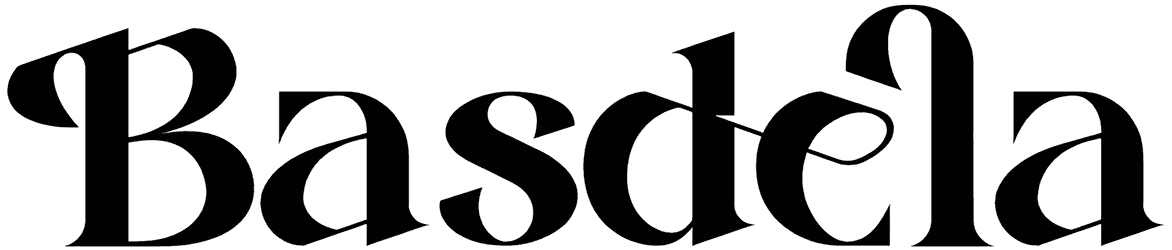
Basdela Font
Basdela’s curves and edges take you to a realm where beauty meets utility. This basic, elegant font conveys elegance, refinement, and originality with its eye-catching design.
Whether you’re creating invitations for a formal event, designing a website, or working on a branding project, Basdela is the perfect choice to add a touch of class and refinement. Download it from RB’s curly font library right now and witness the magic for yourself.